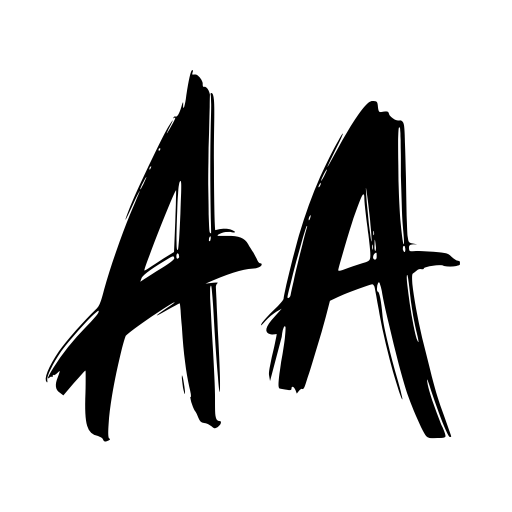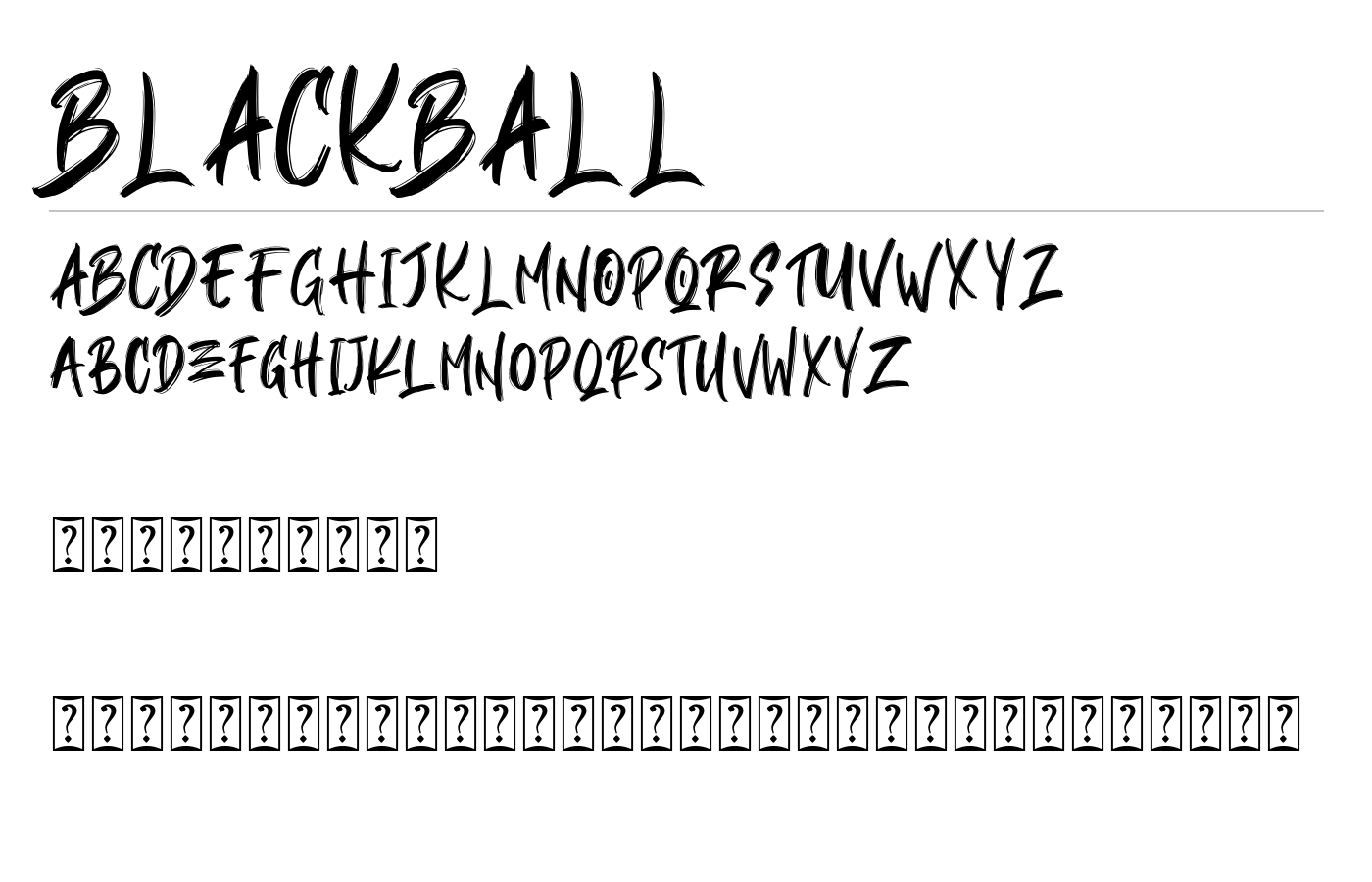
BLACKBALL is a bold, expressive script-inspired font with a casual, hand-painted feel. Its dynamic, brush-like strokes and irregular letterforms give it an energetic, artistic personality, making it perfect for creative branding, posters, and eye-catching headlines. This font works well where a lively, informal style is needed to convey originality and character.
BLACKBALL Font
About BLACKBALL Font
| Font family | BLACKBALL Font |
| Designer | Aldedesign 2019 |